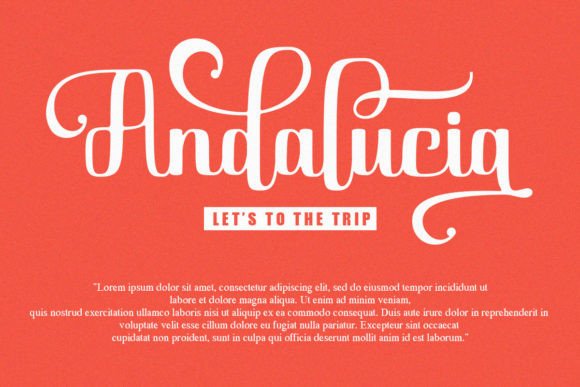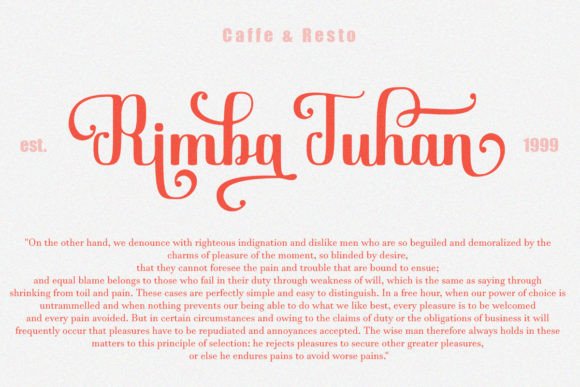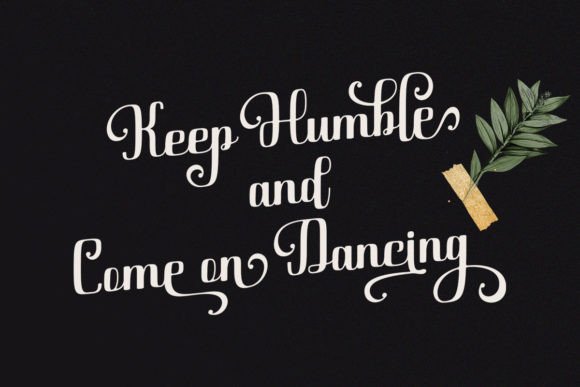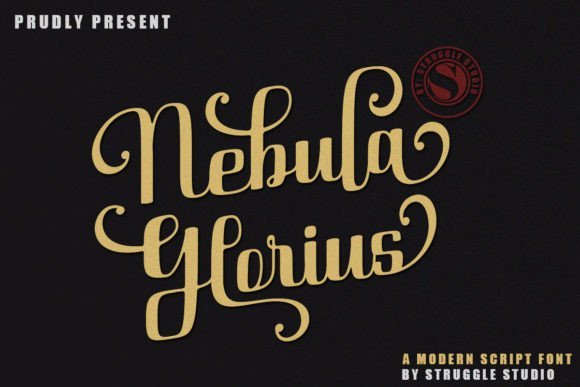
Introduction to Nebula Glorius Font
Nebula Glorius is a flowing handwritten font, described by an elegant touch, perfect for your favorite projects.
Key Features of Nebula Glorius Font
Why Choose Nebula Glorius Font?
Nebula Glorius Font offers exceptional quality and versatility, making it a valuable addition to your design toolkit. Whether you’re creating for personal projects or commercial use, Nebula Glorius Font delivers professional results.